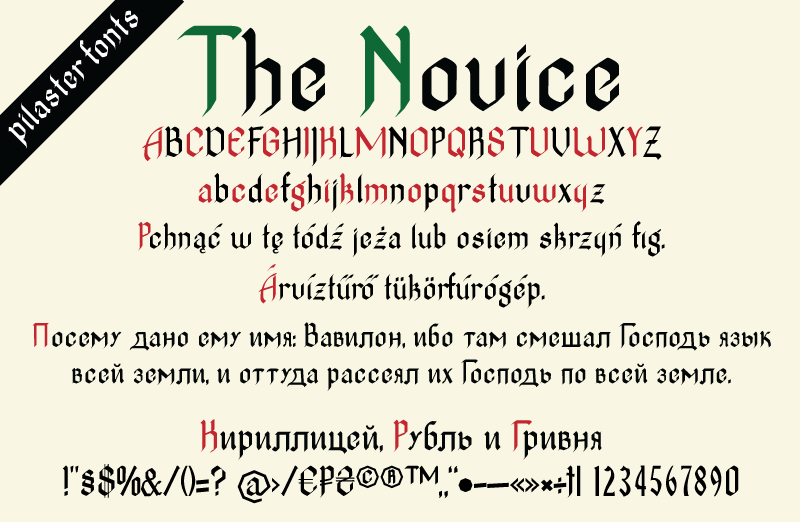
The Novice is a modern blackletter font inspired by Illuminated Manuscripts, a misspent youth at rock concerts and a middle age addled by strong imported lager beer. I created it in a draughty unheated scriptorium by candlelight using only squid ink and a goose feather quill, dressed only in a rough horsehair cassock, then retired to the comfort of my studio to digitise the glyphs and make it usable for the modern world as a .ttf. The Novice is free for personal and not for profit use, but a donation is required for ANY commercial use. A donation, of any size grants licence to use The Novice for commercial purposes. The same donation will pay for more strong imported lager beer, squid ink & goose feathers and keep the fonts coming, so, be pure, be vigilant, be generous. Update has extended language support (including Cyrillic) and tweaked metrics. |